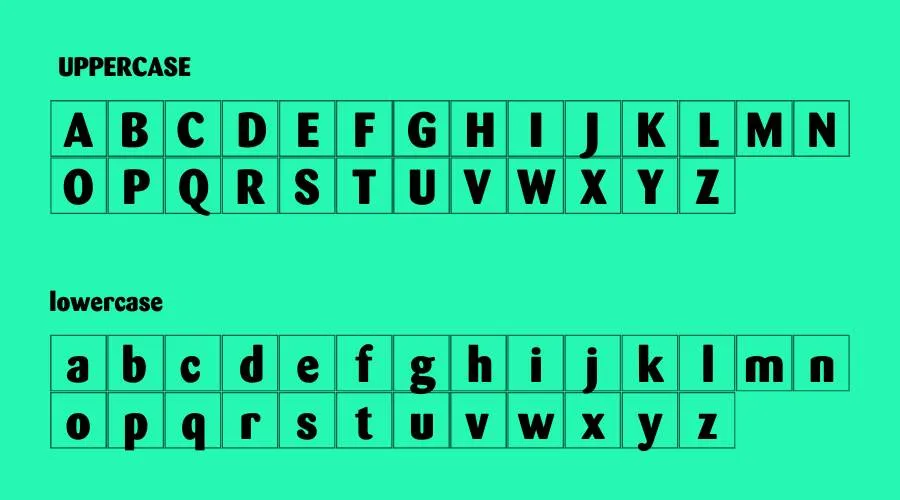
Barmeno Font
The Barmeno Font is a perfect choice for increasing the readability of your projects because of its traditional typography and outstanding elements. It was developed by Hans Reichel for H Berthold. It was released in 1983 and has an amazing texture look appearance for the viewers.
This spherical sans serif has unique individual structures and is suitable for body text and headings. The Barmeno texture is often utilized in web layouts, advertisements, magazines, and ad copy projects. It is best for copy-and-paste procedures.
In addition, It consists of 4 weights and different types of characters such as small letters, capital letters, numeric, functions, symbols, and many other unique structures of the alphabet set. It is available in both OTF and TTF file formats.